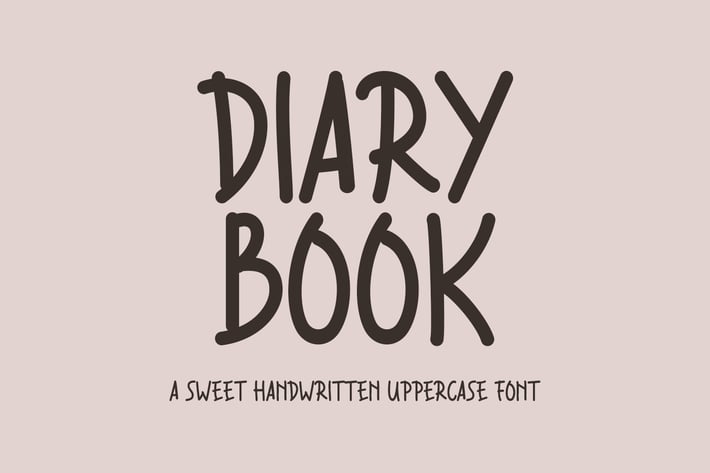
Diary Book Handwritten Font
Diary Book is Handwritten complemented by some of the same alternatives made with love. Access your OpenType features to access the large selection of alternate letters and ligatures, select the letters you like from the large variety to get the display font you like. Perfect for editorial projects, Logo design, Clothing Branding, product packaging, magazine headers, or simply as a stylish text overlay to any background image.
Stylistic Alternates & Ligatures
Numerals & Punctuation